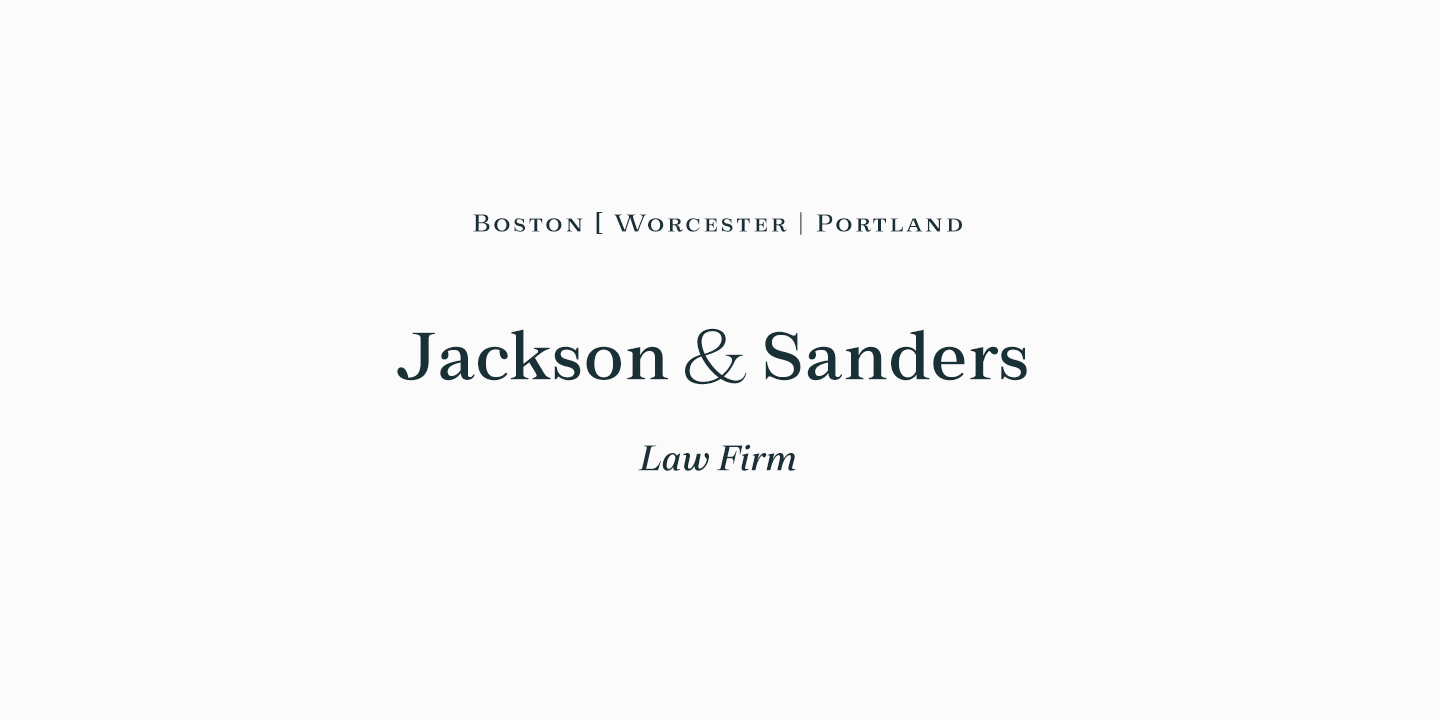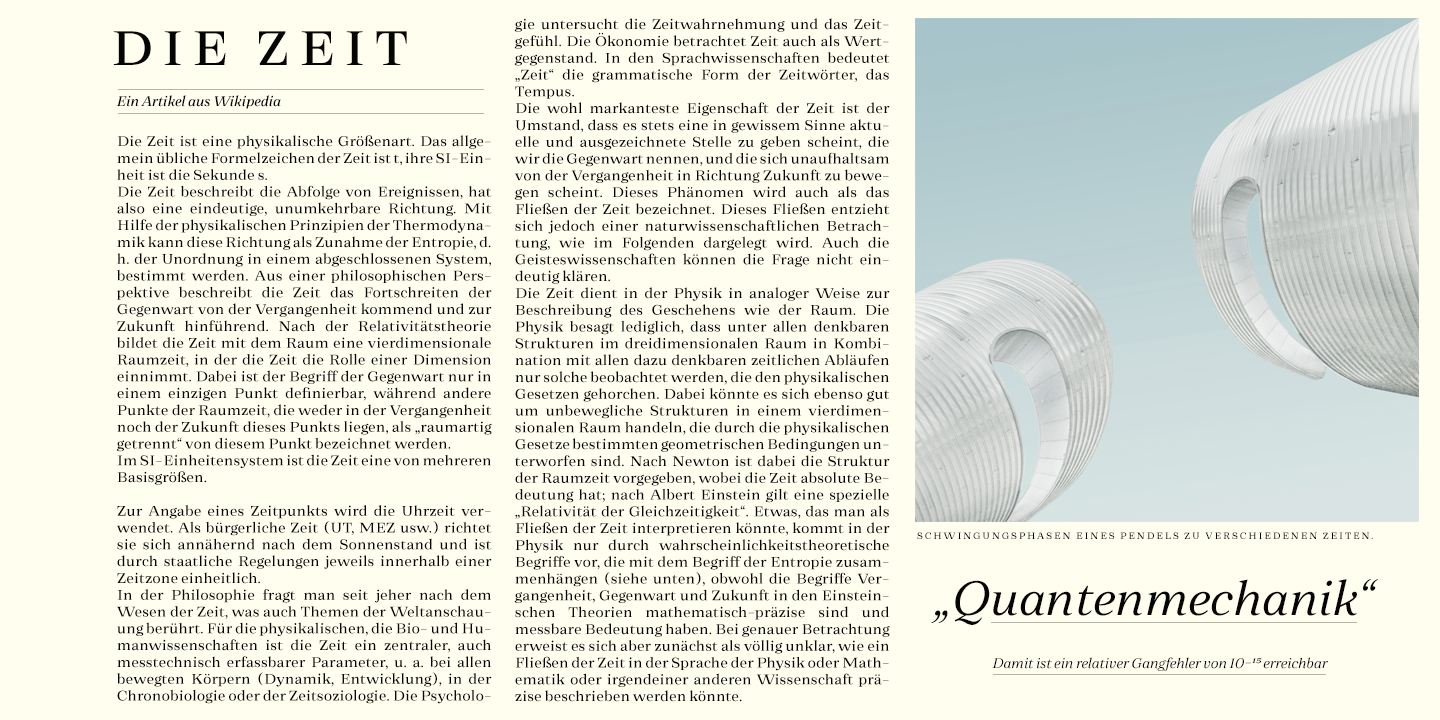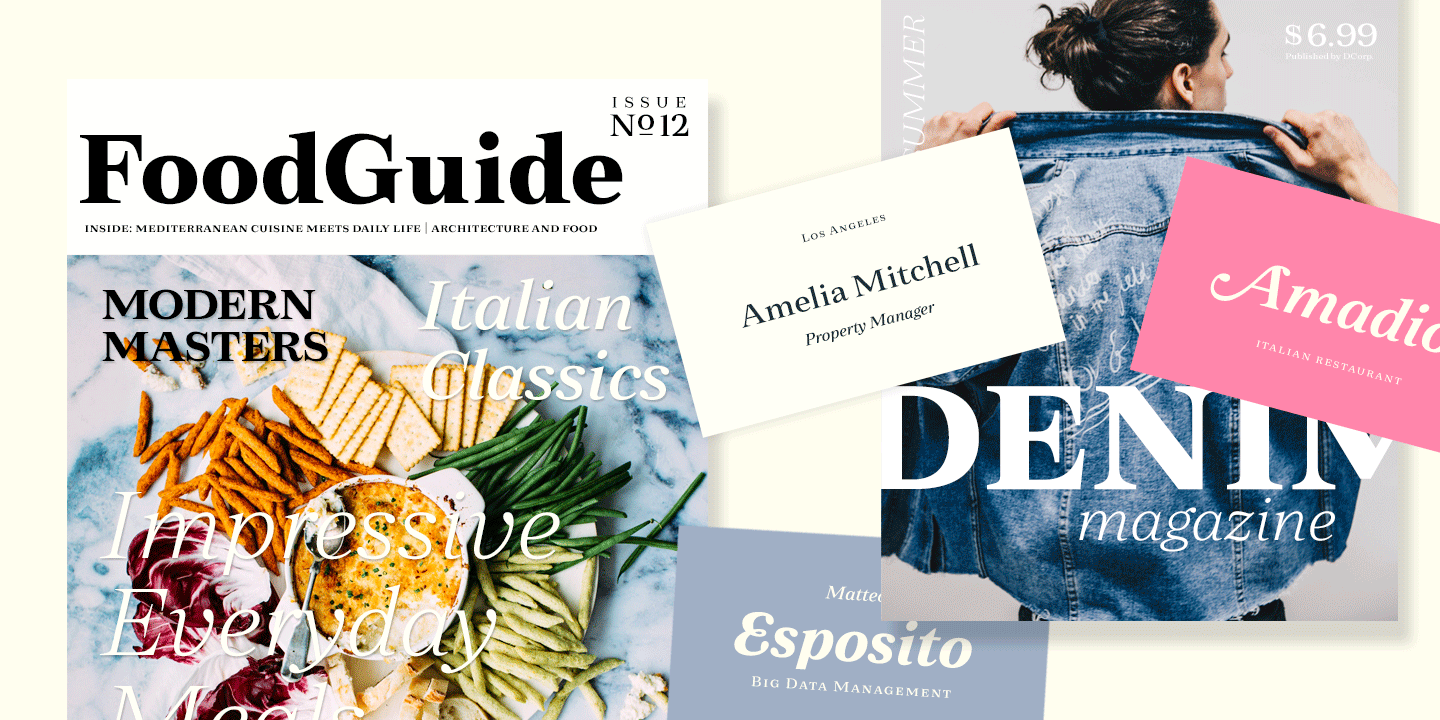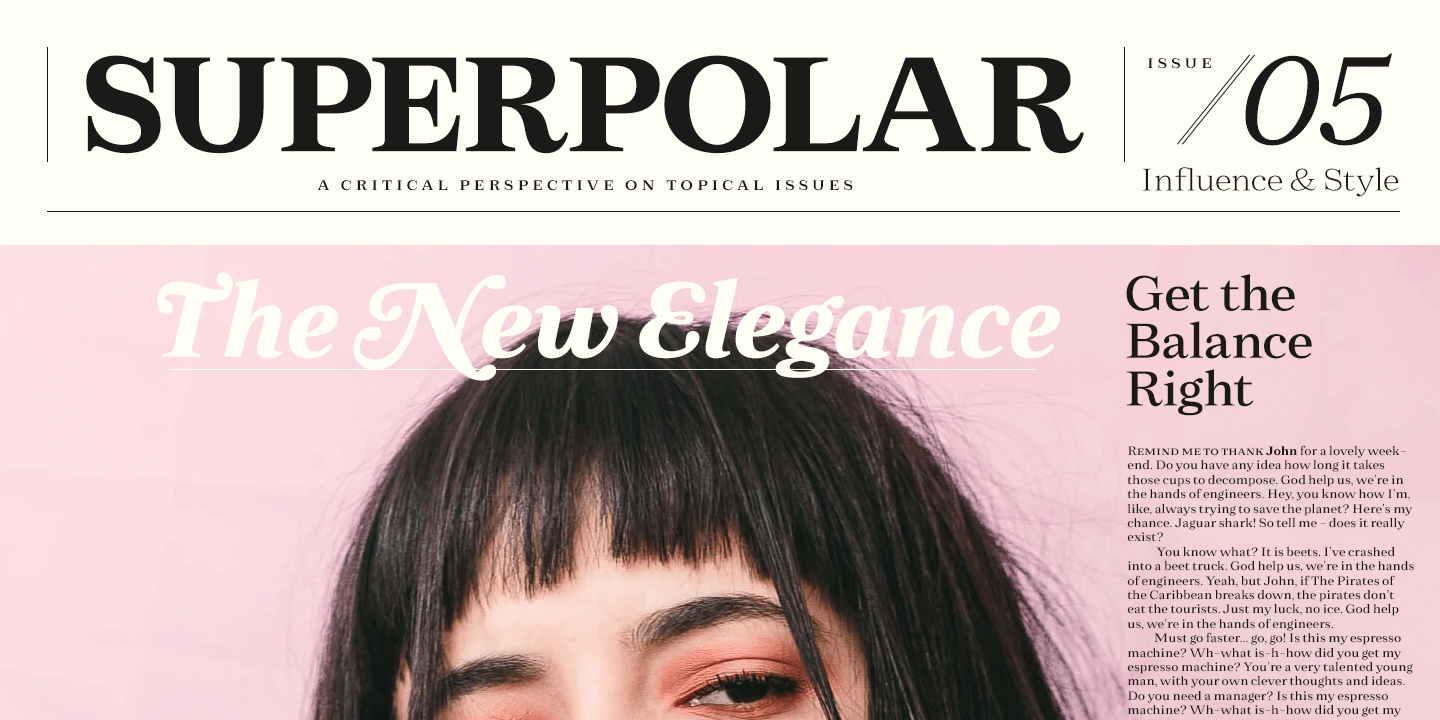
About Zeit
While fashions come and go, style is eternal. True to its name, Zeit is an ageless serif font family, distinct yet reassuringly familiar and trustworthy. From magazines to mobile apps, branding to advertising, Zeit covers everything with poise. The…